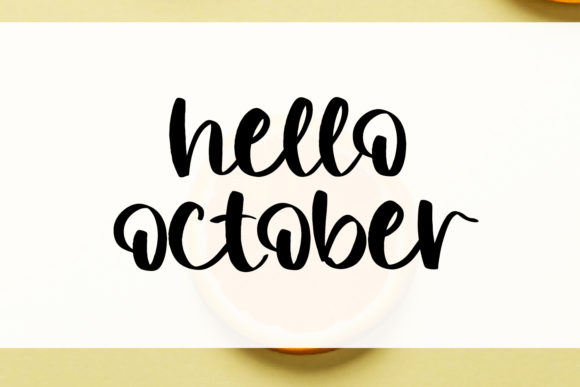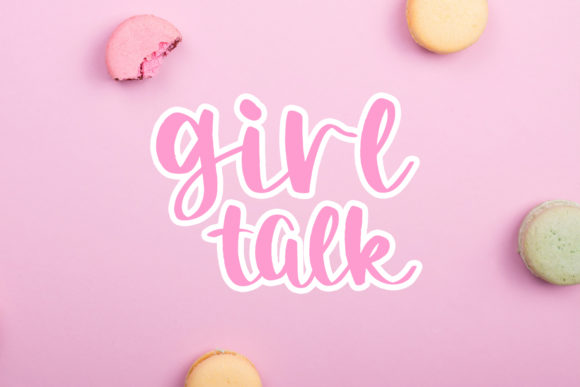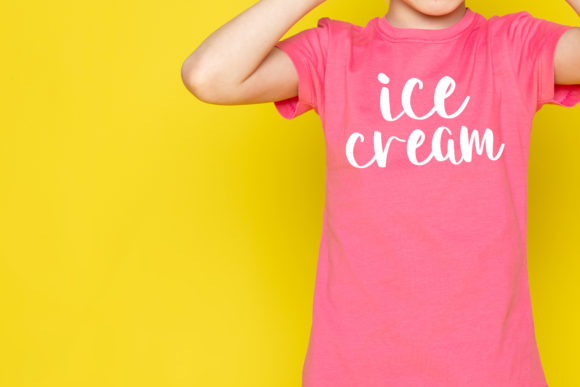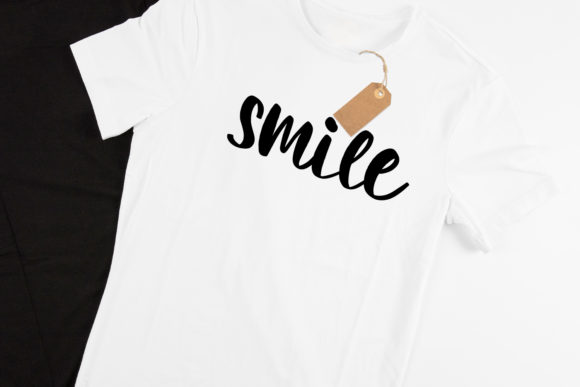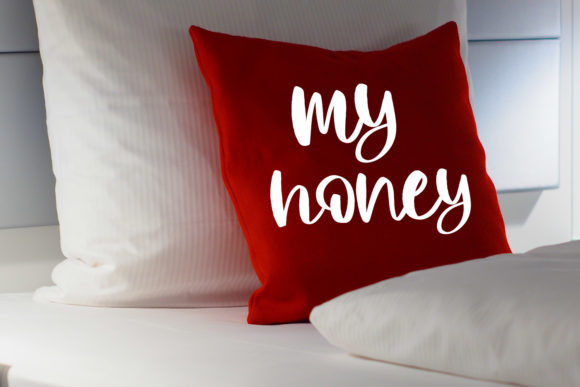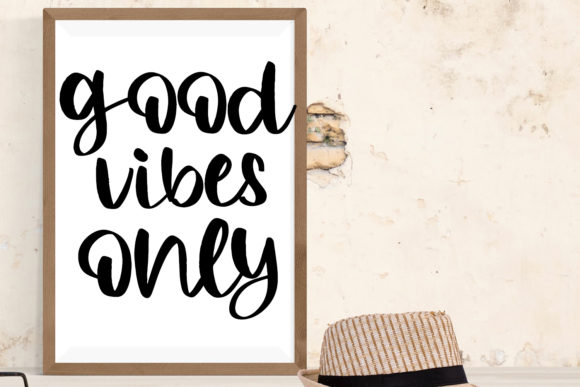
The Freshlemon Font: A Delicate and Elegant Handwritten Masterpiece
I’ll never forget the moment I stumbled upon the Freshlemon font. I was working on a project for a client who wanted a elegant and sophisticated look, but I was struggling to find the right font to convey that feeling. That’s when I discovered Freshlemon, and it completely transformed my design. The delicate and rounded letters seemed to dance on the page, adding a touch of whimsy and charm to my project. In this article, I’ll share my love for Freshlemon, its features, and how to make the most of it in your designs.
A Personal Review: What I Love About Freshlemon
So, what makes Freshlemon so special? Here are a few things that I absolutely love about this font:
- ✨ Delicate and elegant: Freshlemon’s letters are beautifully crafted, with a delicate and elegant feel that’s perfect for designs that require a touch of sophistication.
- ✅ Versatile: This font is incredibly versatile, making it suitable for a wide range of design projects, from wedding invitations to branding and packaging.
- 💫 Unique character: Freshlemon’s distinct letters make it stand out from other fonts, adding a touch of personality to your designs.
While Freshlemon is an amazing font, there are a few small quirks to be aware of:
- 🤔 Limited use in body text: Due to its elegant and cursive nature, Freshlemon may not be the best choice for body text, especially for longer paragraphs.
- ⚠️ Requires attention to spacing: As with any script font, it’s essential to pay attention to spacing to ensure that your text looks balanced and visually appealing.
While the true story behind Freshlemon remains a mystery, it’s easy to imagine that the designer was inspired by the elegance and sophistication of handwritten scripts. Perhaps they spent hours pouring over vintage letters and typography books, searching for the perfect combination of curves and lines. Whatever the inspiration, Freshlemon is a true masterpiece that’s sure to delight designers and crafters alike.
| What type of designs is Freshlemon best suited for? | Freshlemon is perfect for designs that require a touch of elegance and sophistication, such as wedding invitations, branding, packaging, and titles. |
| Can I use Freshlemon for body text? | While Freshlemon is beautiful, it’s not the best choice for body text, especially for longer paragraphs. It’s better suited for titles, headings, and short paragraphs. |